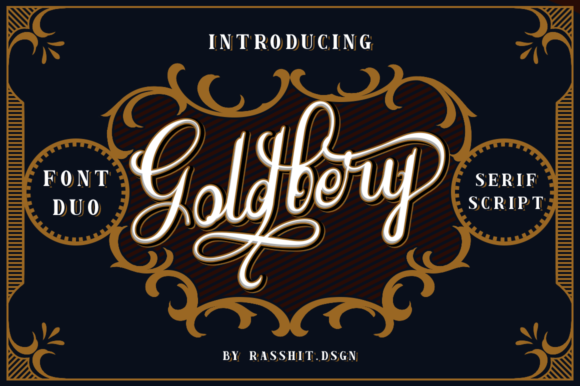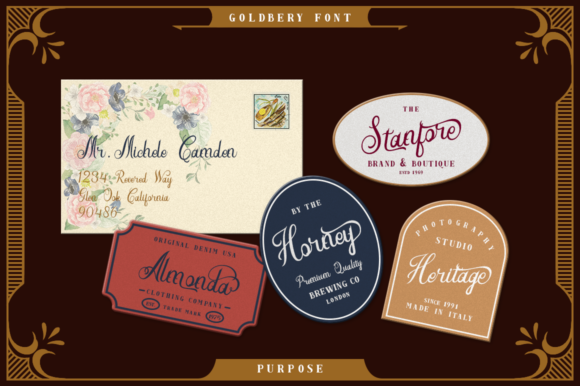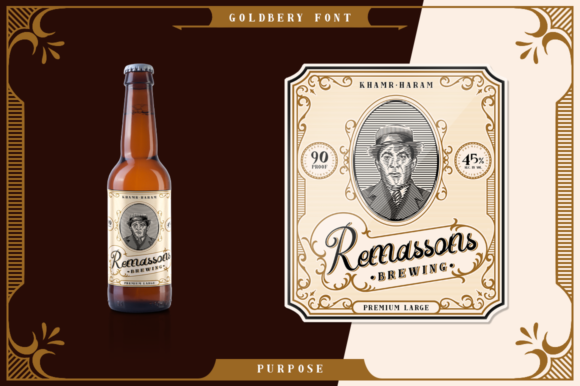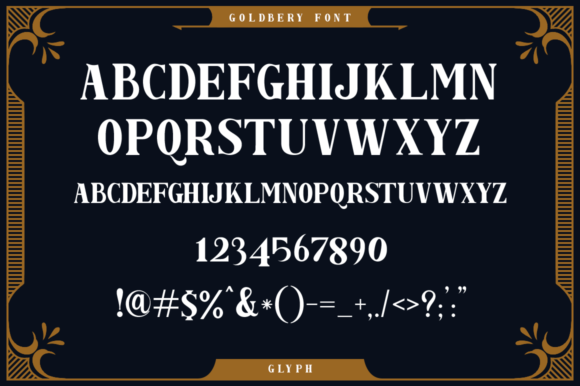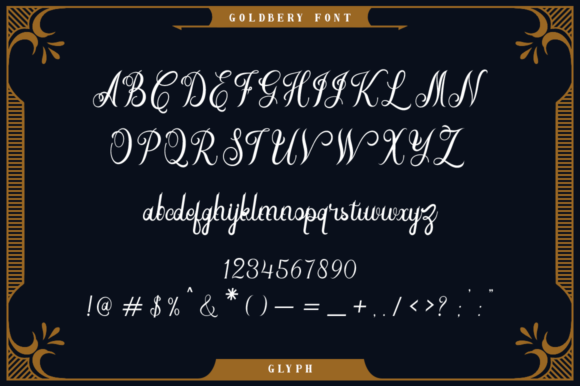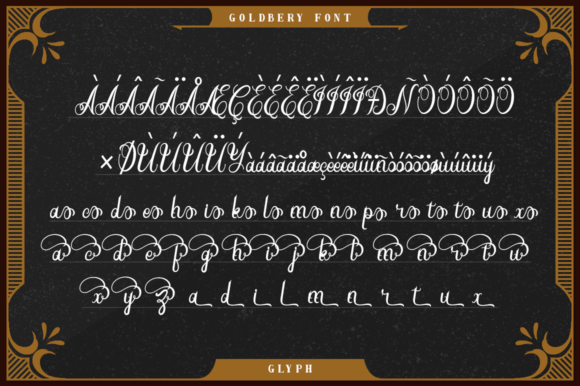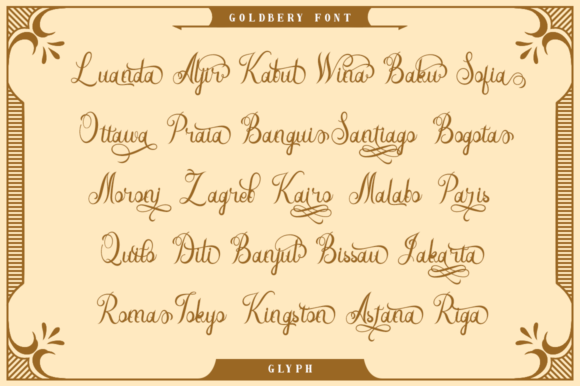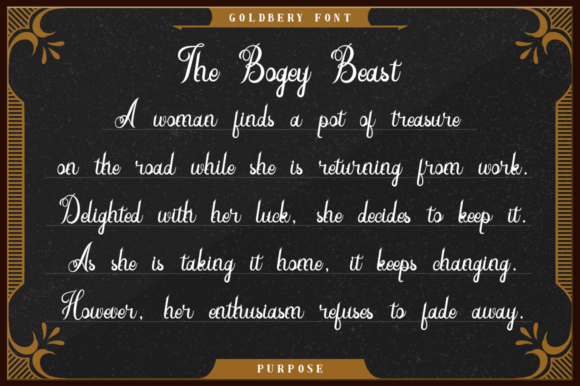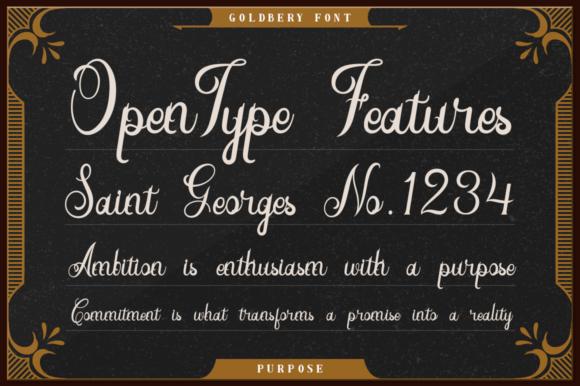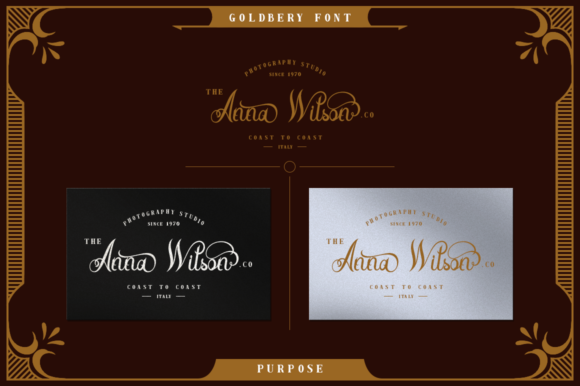
HomeScript FontsGoldbery Font Script Fonts Goldbery Font FacebookXPinterestWhatsApp Goldbery Font Poster 2 Goldbery Font Poster 3 Goldbery Font Poster 4 Goldbery Font Poster 5 Goldbery Font Poster 6 Goldbery Font Poster 7 Goldbery Font Poster 8 Goldbery Font Poster 9 Goldbery Font Poster 10 Goldbery Font Poster 11 About Goldbery Font Goldbery is a classic and elegant script font. It will add a vintage and luxurious look to any craft project. DOWNLOAD ON CREATIVE FABRICAThis font is sold and delivered by Creative Fabrica. Font Canyon may earn a commission if you buy through this link. People also explored Maiden Orange Pro Darling Font Buntaro Legilature Font Flavor Mellow Font Feronika Font Erika Carleigh Font Marksman Font Fall Halloween Font 333 0 TagsGoldbery Font Previous articleThe Padlock FontNext articleCarmelio Font LEAVE A REPLY Cancel reply Comment: Please enter your comment! Name:* Please enter your name here Email:* You have entered an incorrect email address! Please enter your email address here Website: Save my name, email, and website in this browser for the next time I comment. Personal Use Free Harshita Personal Use Free Read more about this font Tide Personal Use Free Read more about this font Astagina Signature Personal Use Free Read more about this font Cottage Personal Use Free Read more about this font BLOG Modern Sans-Serif Fonts That Brands Love in 2025 In 2025, modern sans-serif fonts remain a top choice for brands looking to project clarity, professionalism, and... Transform Your Website: Elevate Your Typography with 7 Best Web Font Generators Using Fonts in Digital Marketing: Tips to Strengthen Your Brand Identity Free Fonts Risk: Why Free Fonts Can Be Dangerous for Designers